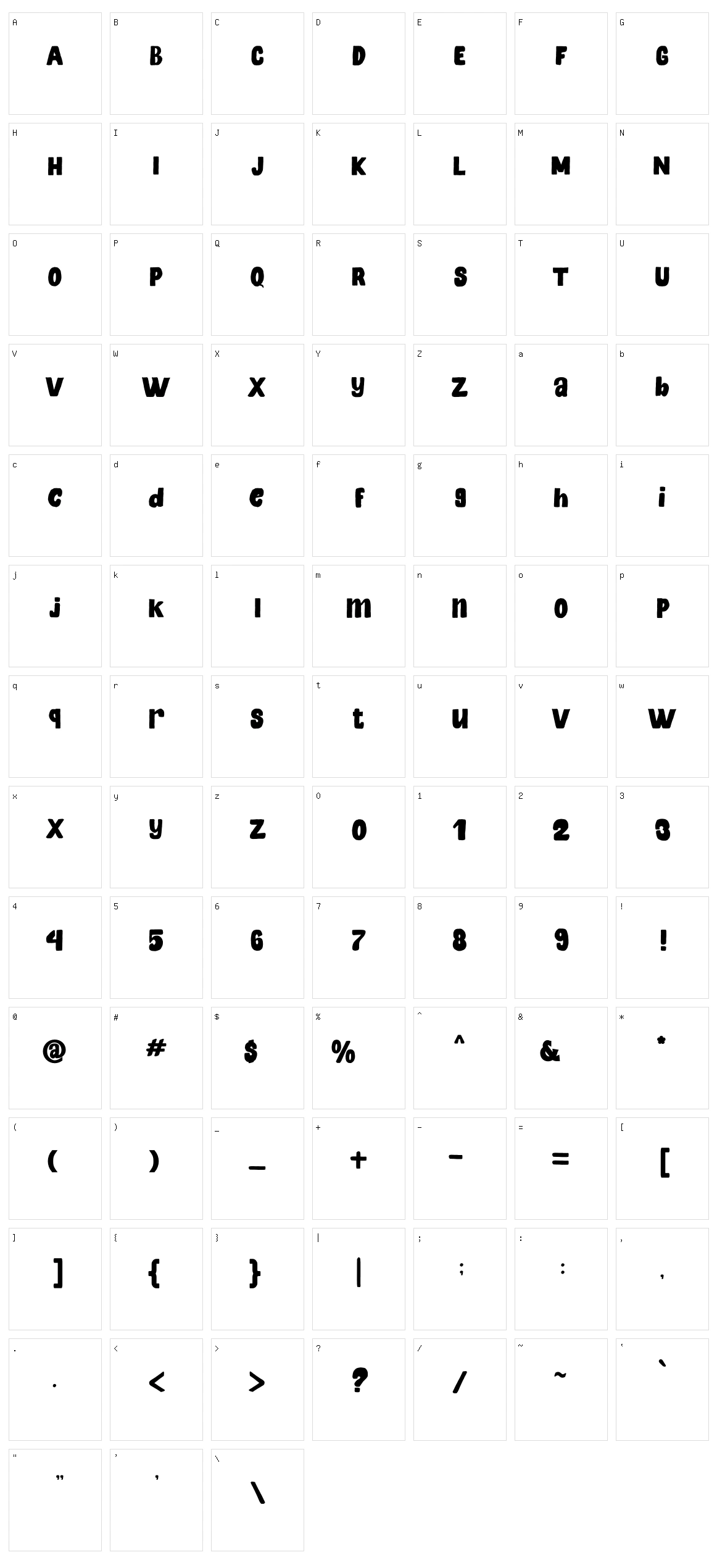
The free font Hetro is carefully designed by Suamzu Art, showcasing a thoughtful balance of creativity and usability and falls under the Cartoon font style. When you download the ZIP file, it contains only 136.96 KB of font files, making it lightweight and quick to download. Please review the license details below to understand permitted usage and distribution rights. If license information is not available, we recommend using this font for personal projects only or contacting the author directly for commercial usage permissions.